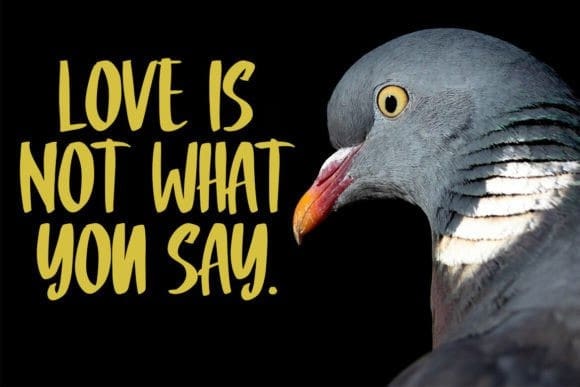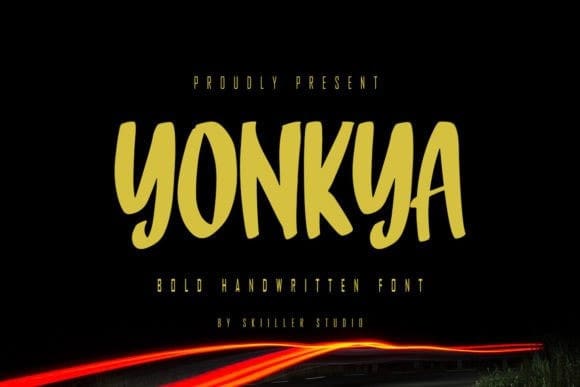
Yonkya Font
Yonkya Font is a modern and brushed handwritten font, crafted to give your headlines and logotype projects a stylish touch. This font reads as strong, confident, and dynamic and can add tons of urban character to your designs.